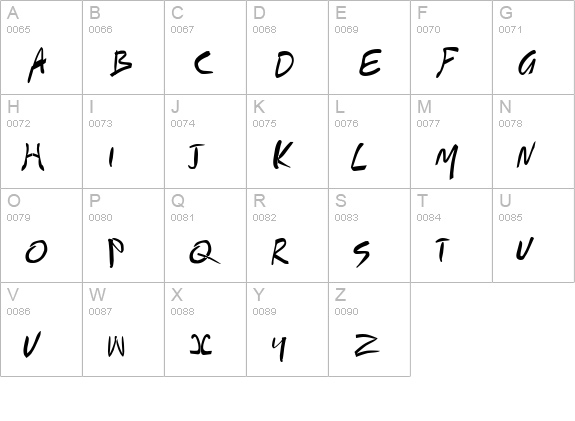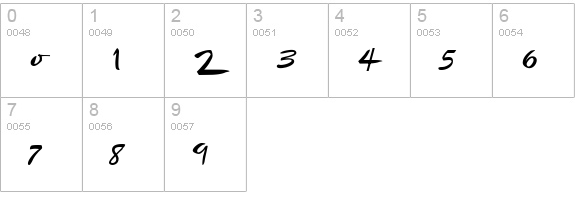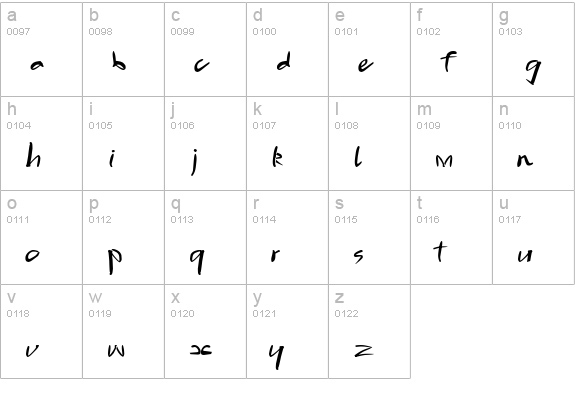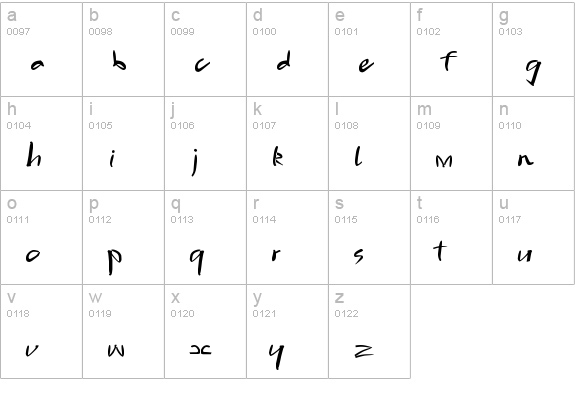
Sydney 2000 font is a modern and dynamic typeface that captures the spirit of the iconic city. With its sleek lines and bold curves, this font is perfect for creating eye-catching designs that stand out. Whether you're working on a sports-themed project or simply want to add a touch of excitement to your design, Sydney 2000 font is sure to make a statement. The best part? Sydney 2000 font is available for free download at FontsMarket.com. This means you can easily access this stylish font and use it in your projects without any cost. So why wait? Download Sydney 2000 font today and unleash your creativity with this stunning typeface.